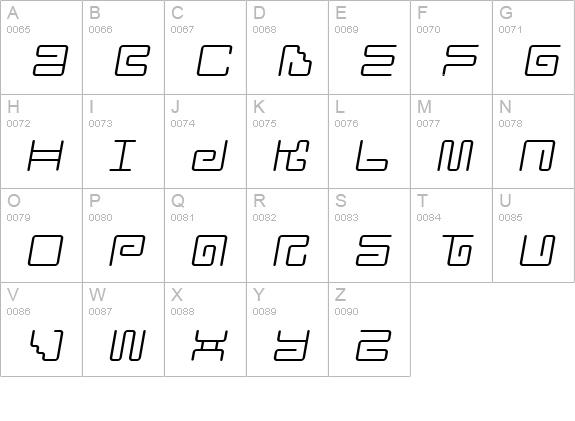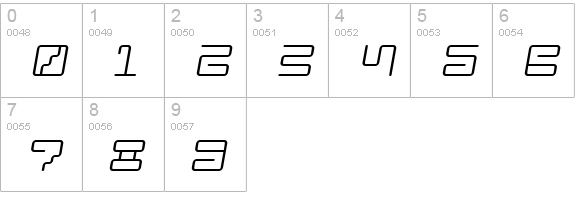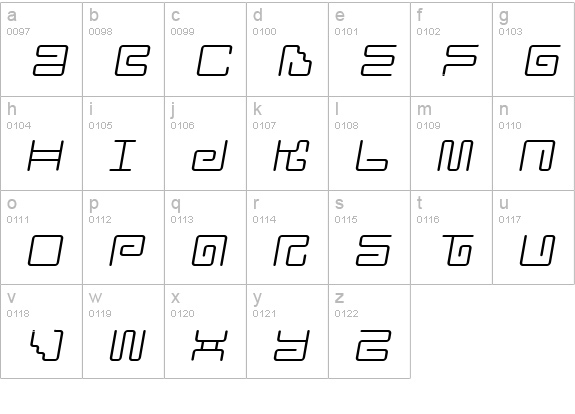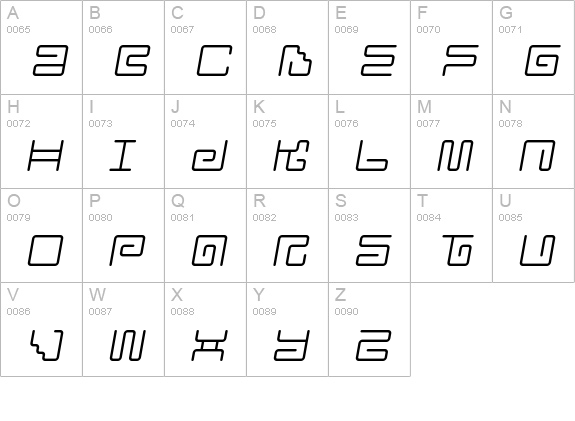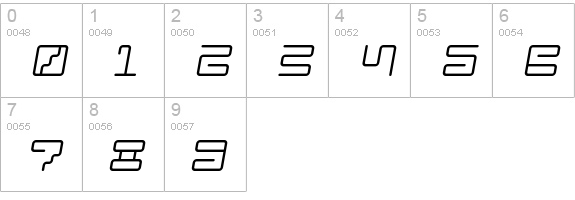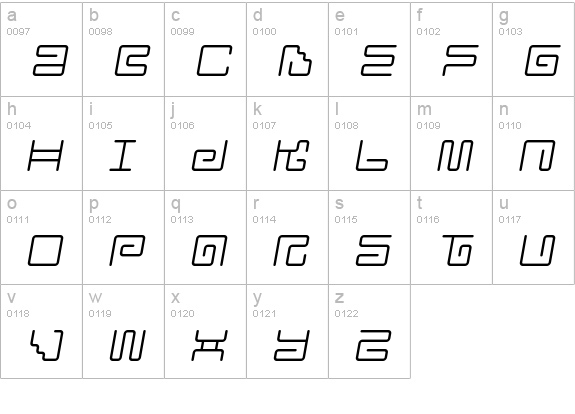
Introducing Iron Lounge 2, a stunning font that exudes power, sophistication, and an undeniable allure. With its bold and angular letterforms, this typeface commands attention and makes a lasting impression. Whether used for headlines, logos, or branding materials, Iron Lounge 2 effortlessly adds a touch of modern elegance to any design. What sets Iron Lounge 2 apart is not only its striking aesthetics but its accessibility. This font is freely available to download at FontsMarket.com, making it accessible to designers, creatives, and typography enthusiasts alike. Say goodbye to restrictive licensing fees and hello to the freedom of expression that Iron Lounge 2 offers. With its wide range of weights and styles, Iron Lounge 2 provides versatility and flexibility in your design projects. Choose from Regular, Bold, Italic, and more, to create captivating designs that captivate and engage your audience. Whether you're crafting a sleek corporate identity or designing eye-catching social media graphics, Iron Lounge 2 has the perfect variation to bring your vision to life. The clean lines and sharp edges of Iron Lounge 2 make it an ideal choice for modern and minimalist designs. Its legibility and distinct character make it suitable for a variety of applications, including editorial layouts, packaging designs, and web interfaces. Regardless of the medium, Iron Lounge 2 stands out with its timeless appeal and contemporary edge. Download Iron Lounge 2 today from FontsMarket.com and unlock the limitless possibilities it offers. Elevate your designs with this remarkable font and experience the freedom of creativity. Let Iron Lounge 2 be your go-to font for projects that demand attention, style, and a touch of sophistication.